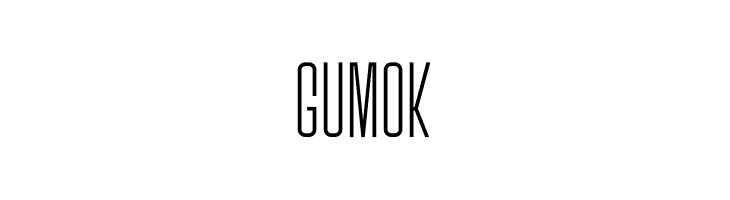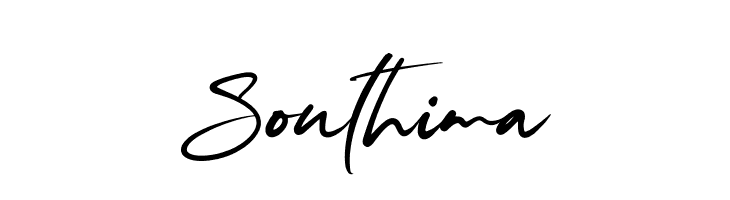
A bold, angular, and oblique font with a dynamic and geometric style.
An elegant and artistic script font with flowing, intricate letterforms and decorative flourishes.
A modern, narrow font with a sleek, elongated design.
A bold, dynamic font with a three-dimensional effect and angular edges.
A modern, geometric outline font with consistent line weight and balanced design.
A calligraphic, italic font with sharp, angular strokes and a mystical appearance.
A bold, geometric font with a modern and assertive style.
A bold, distressed font with a rugged and dynamic style.
A bold, geometric font with a modern, tech-inspired design.
A decorative script font with scalloped frames around each character.